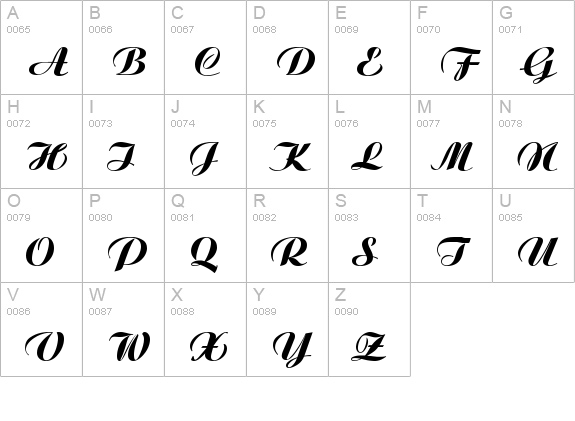
Artoney Font Details
Artoney font is a stunning and elegant typeface that exudes sophistication and style. With its smooth lines and modern aesthetic, this font is perfect for a wide range of design projects, from branding to editorial design. The Artoney font is versatile and can be used for both headings and body text, making it a great choice for any creative project. The best part? Artoney font is completely free to download at FontsMarket.com. That's right - you can add this beautiful font to your collection without spending a dime. So why wait? Head over to FontsMarket.com now and enhance your designs with the timeless elegance of Artoney font.